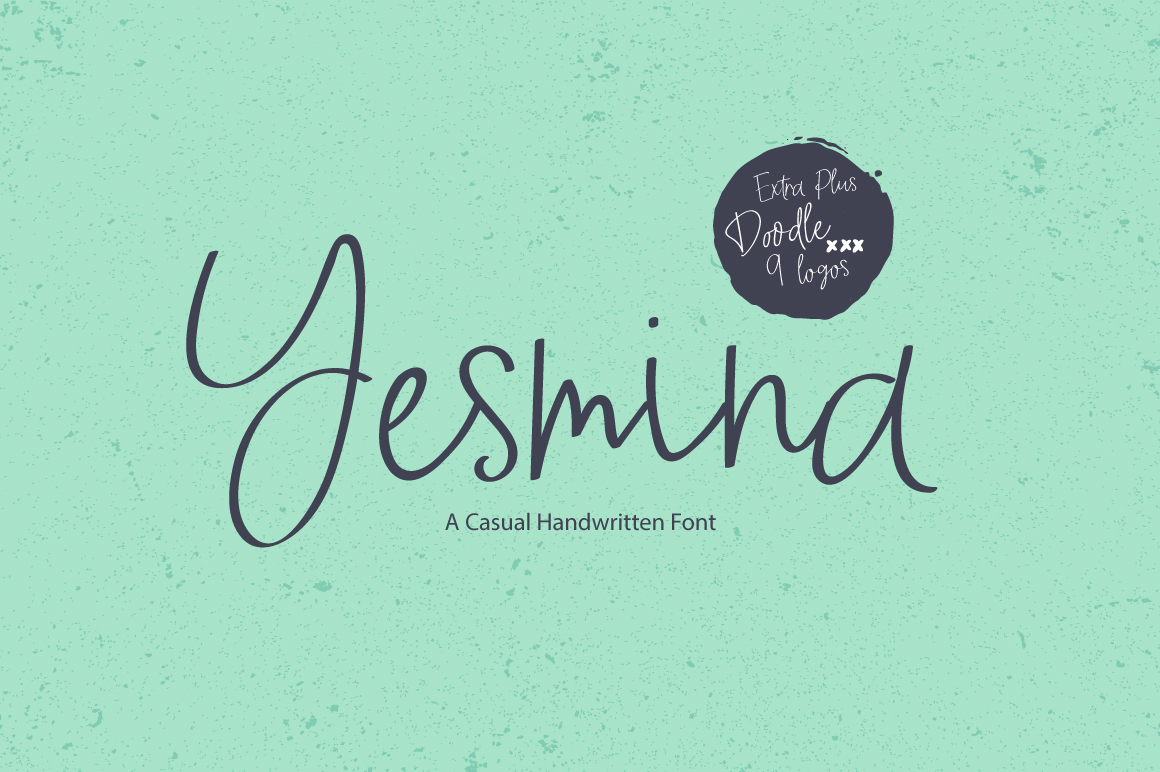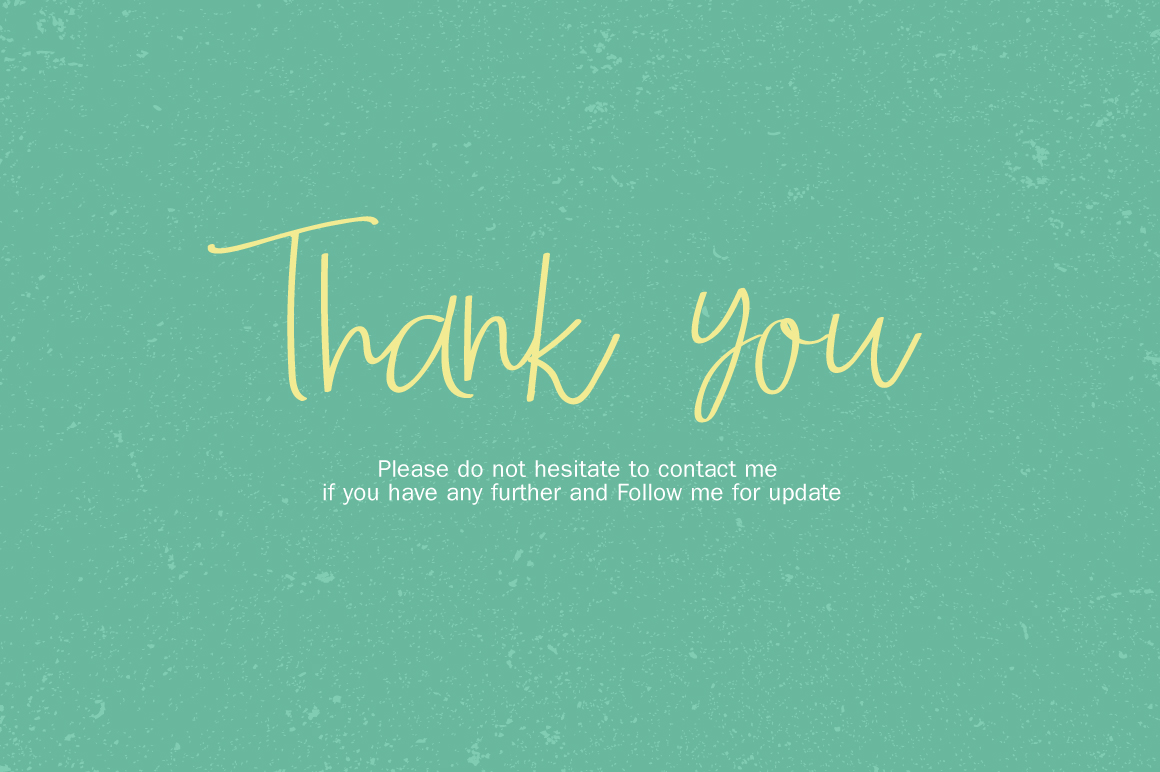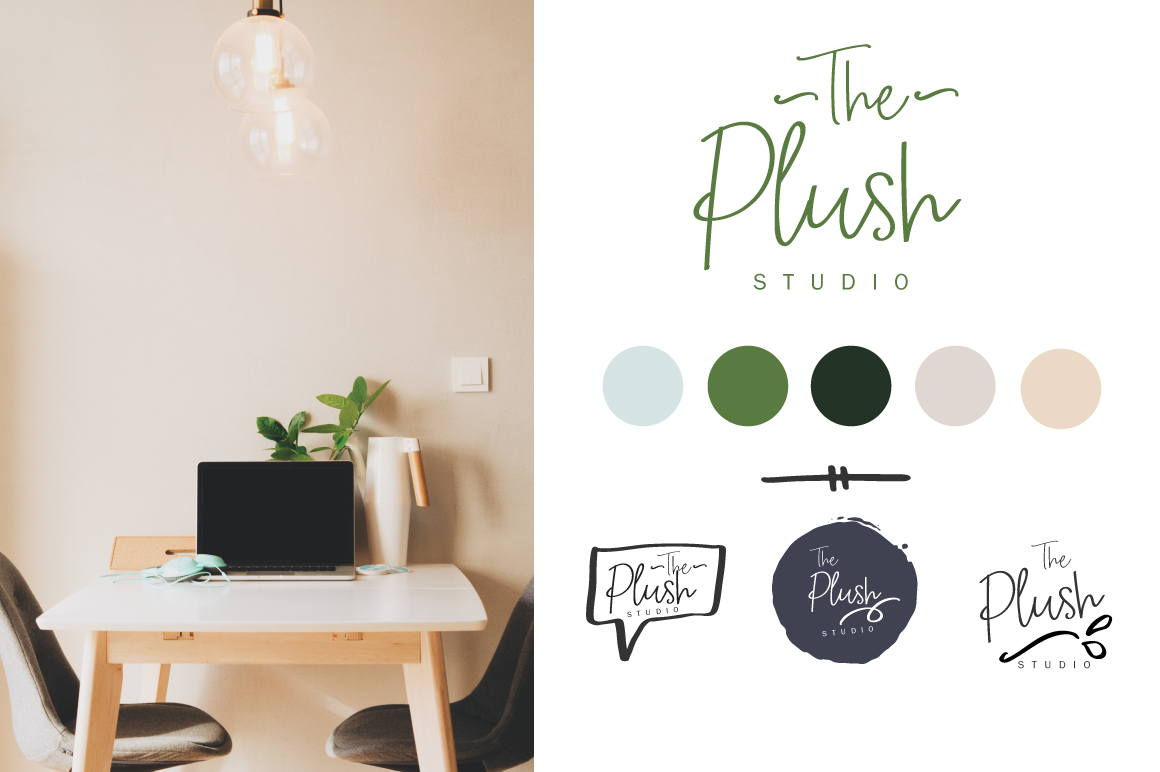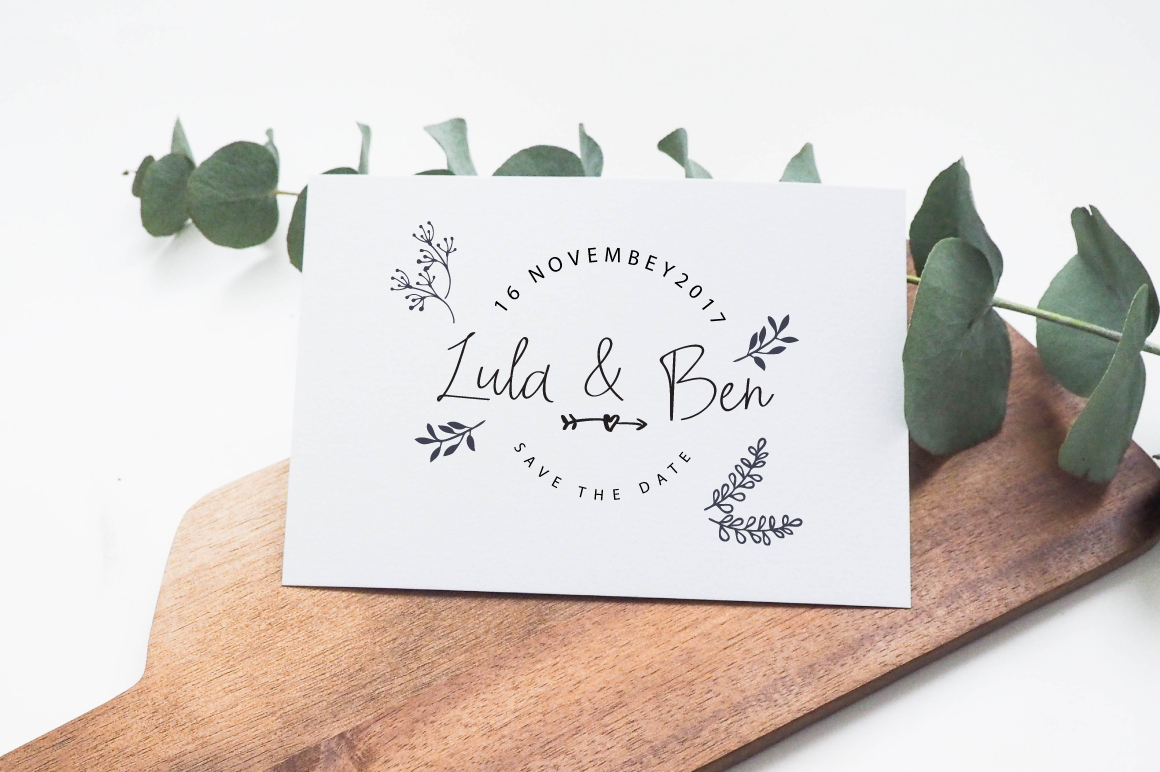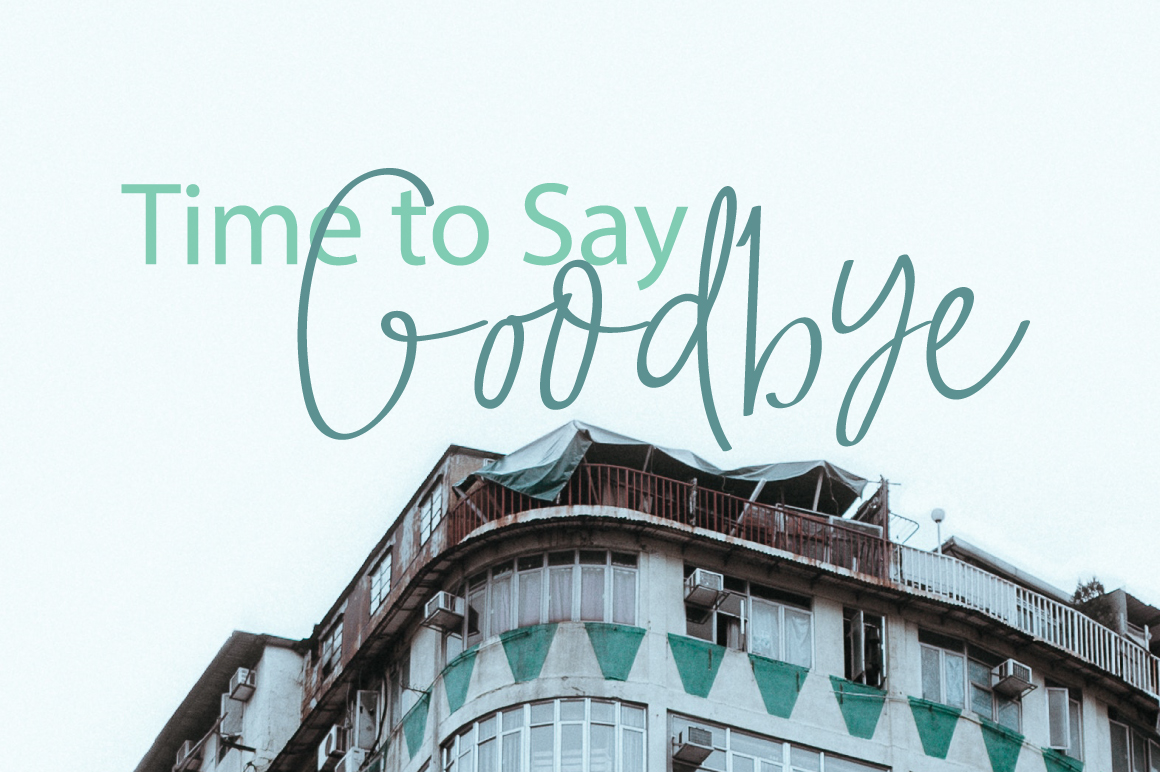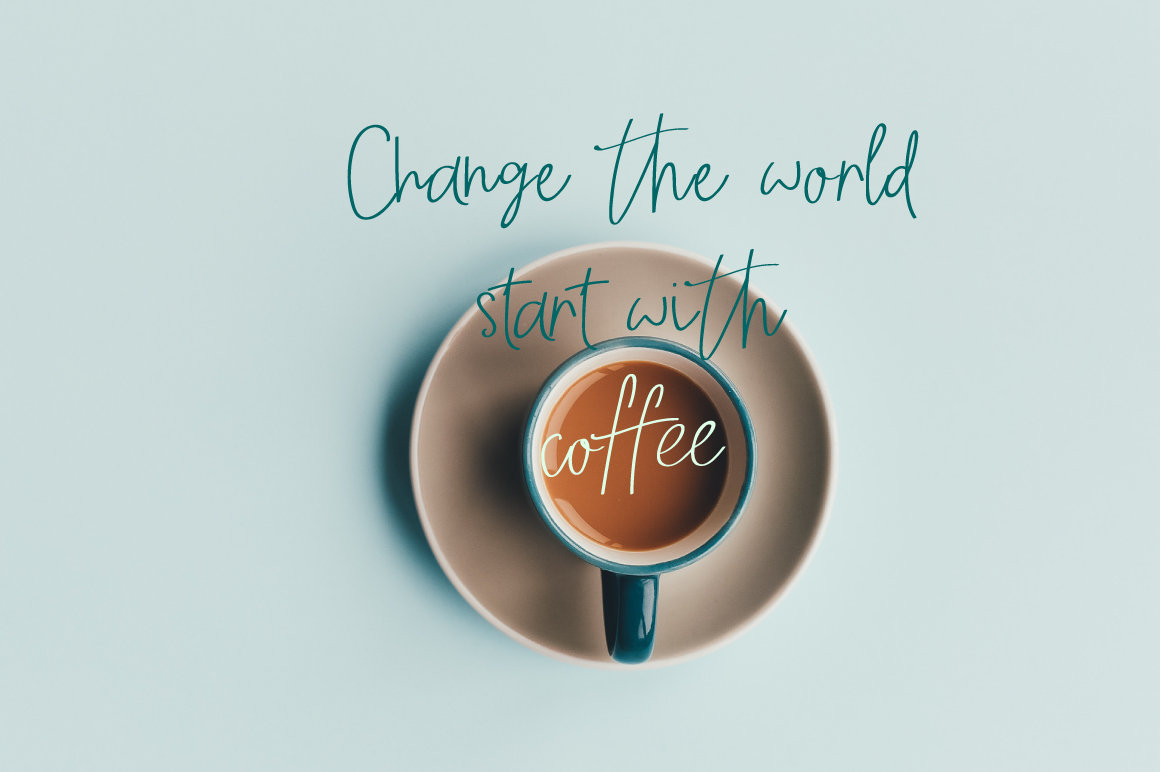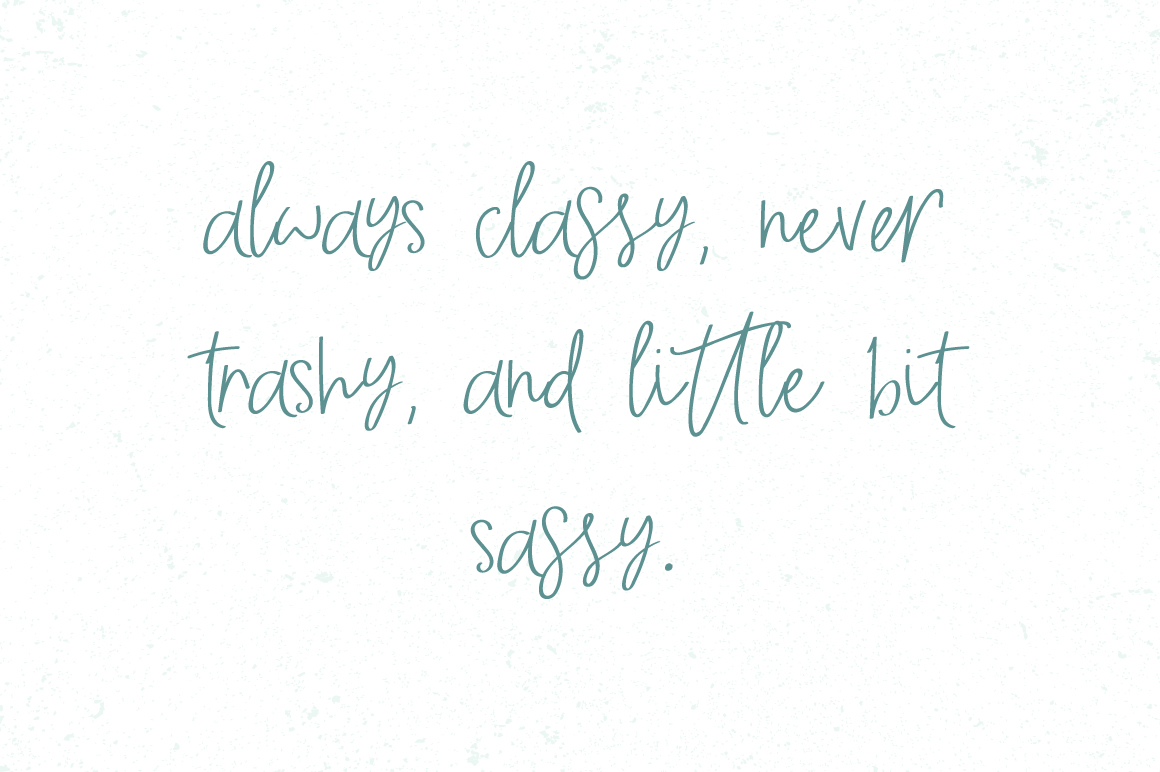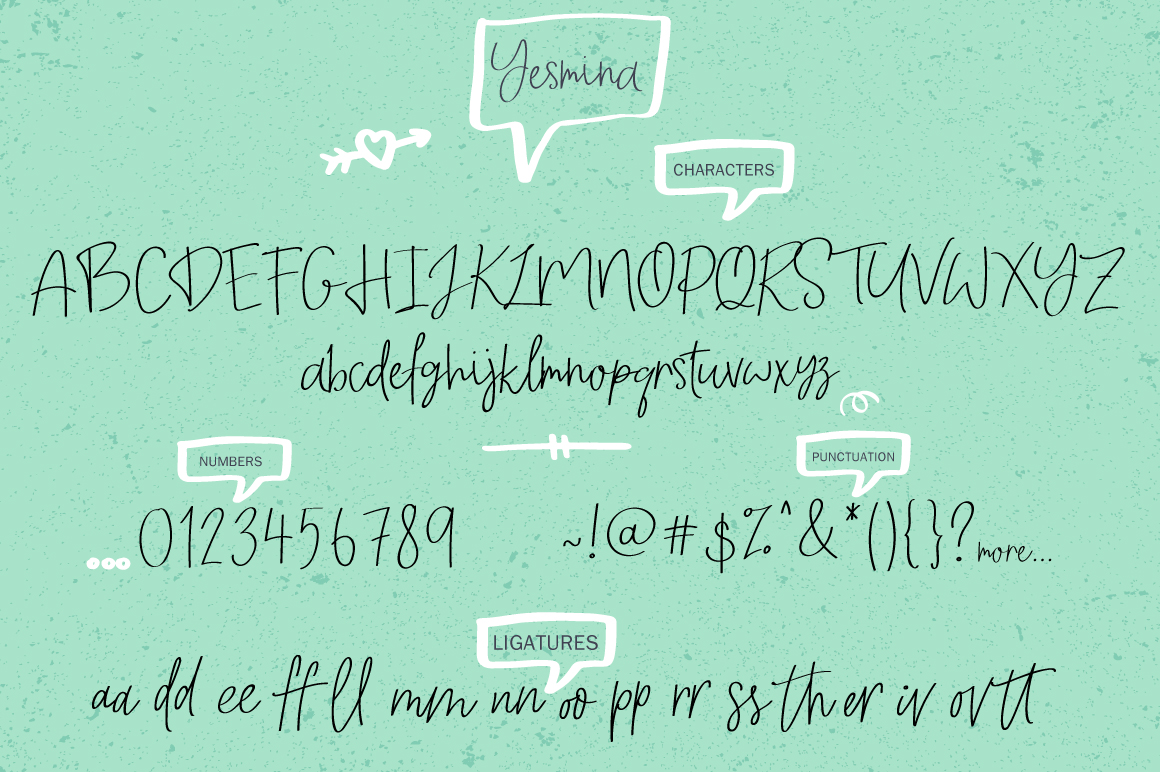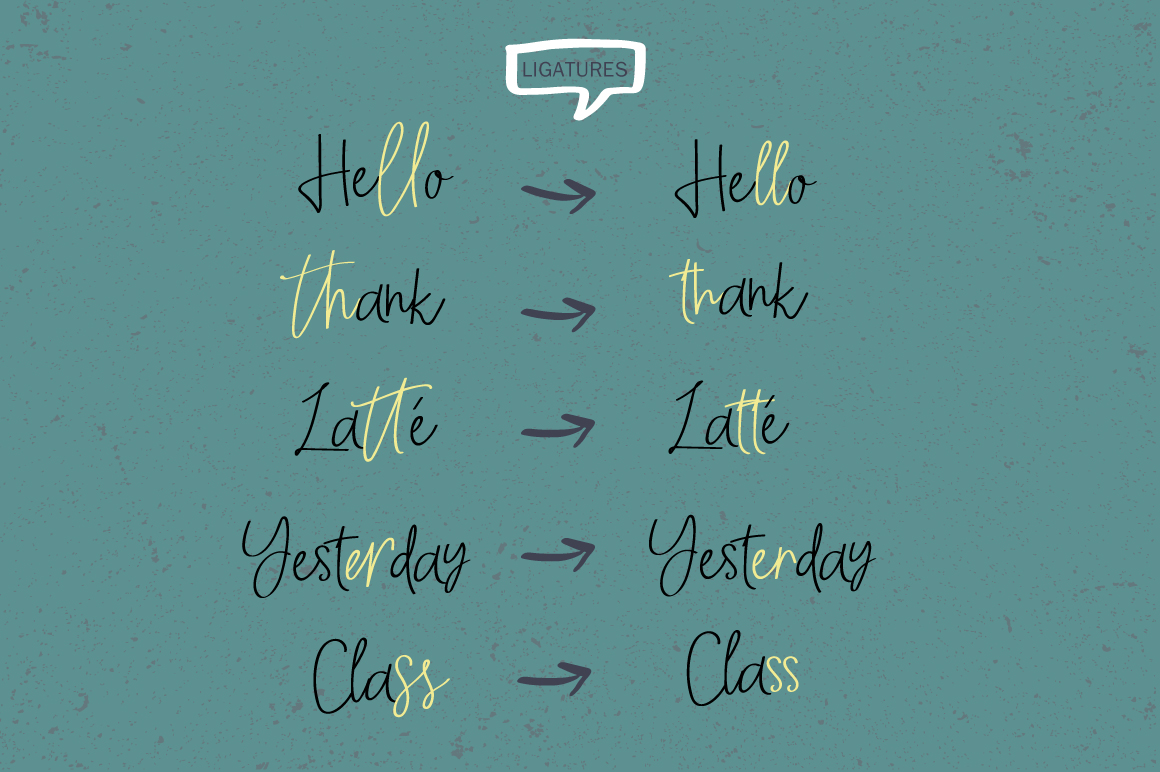
Yesmina Font
About Yesmina Font
Yesmina is a truly beautiful script font. Variable and handwritten, Yesmina has a monoline quality that keeps it modern and fashionable without wavering on fluidity.